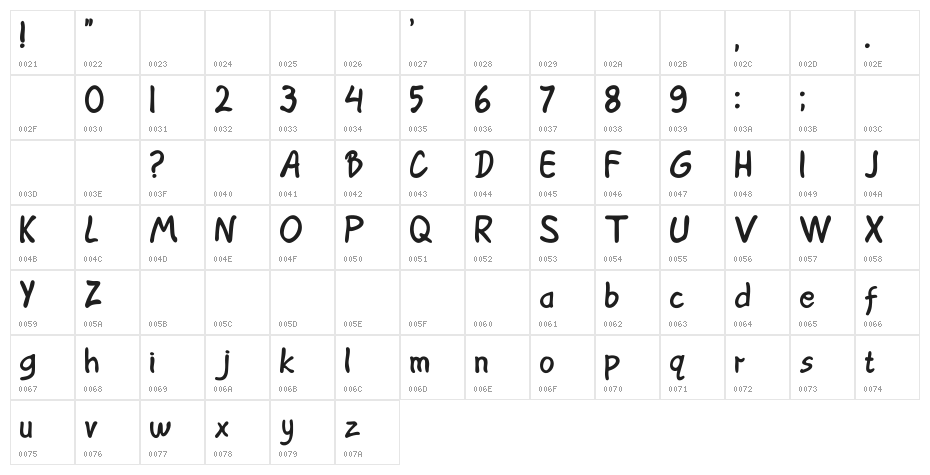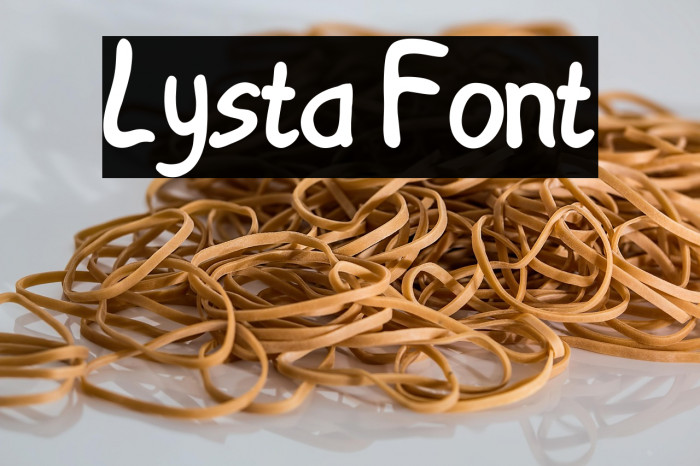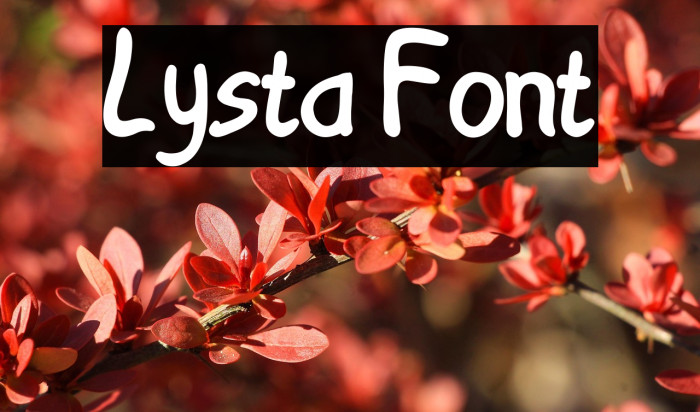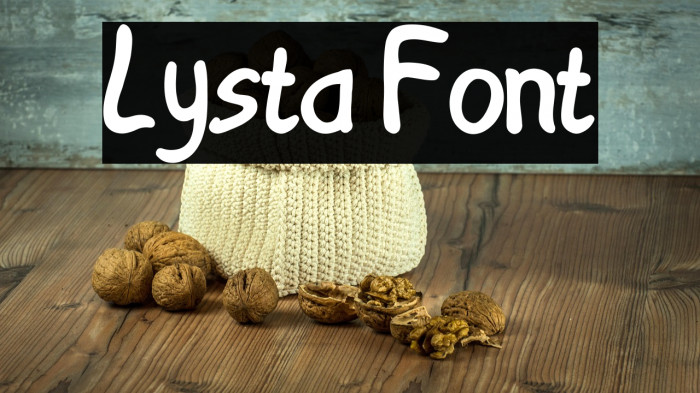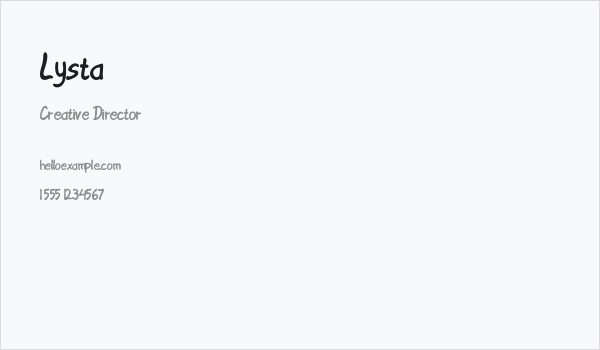
Lysta Font
Lysta Description
A playful, rounded handwritten typeface with smooth curves and a casual, friendly appearance. The strokes are consistent in thickness, and the characters have a slightly irregular, organic feel.
| Overall Style | Playful, Casual, Friendly |
| Use Case | Headlines, Logos, Posters, Informal text |
| Proposed Projects | ChildrenΓ’β¬β’s books, greeting cards, informal branding, posters, social media graphics. |